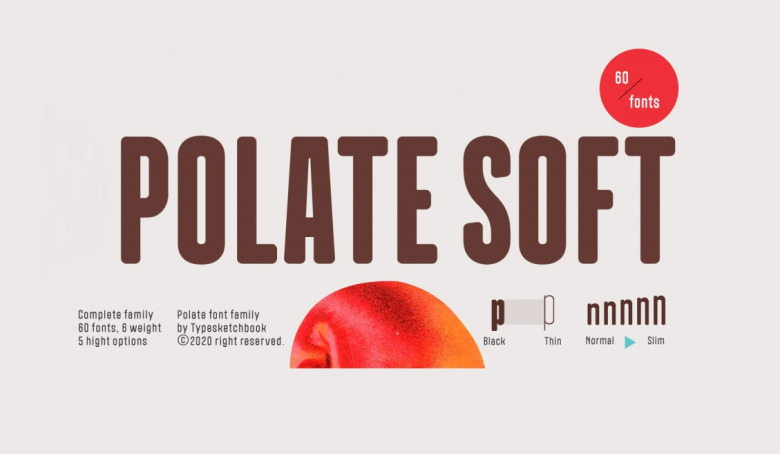
Polate Soft Font Family
Polate Soft Sans Serif Font Family is alike a second-generation modification of the form of the initially ‘Polate’ typeface. Intended to be more friendly as well as the rounded corners, the font family has rounded terminals. Thus, “Polate Soft” is a well-known, emphasized, and exclusive font.
It has 6 weights with 5 High options to meet multipurpose typography, including work, website, magazine, editorial, publishing, packaging, and cooperation.
Polate Soft Sans Serif Font Family